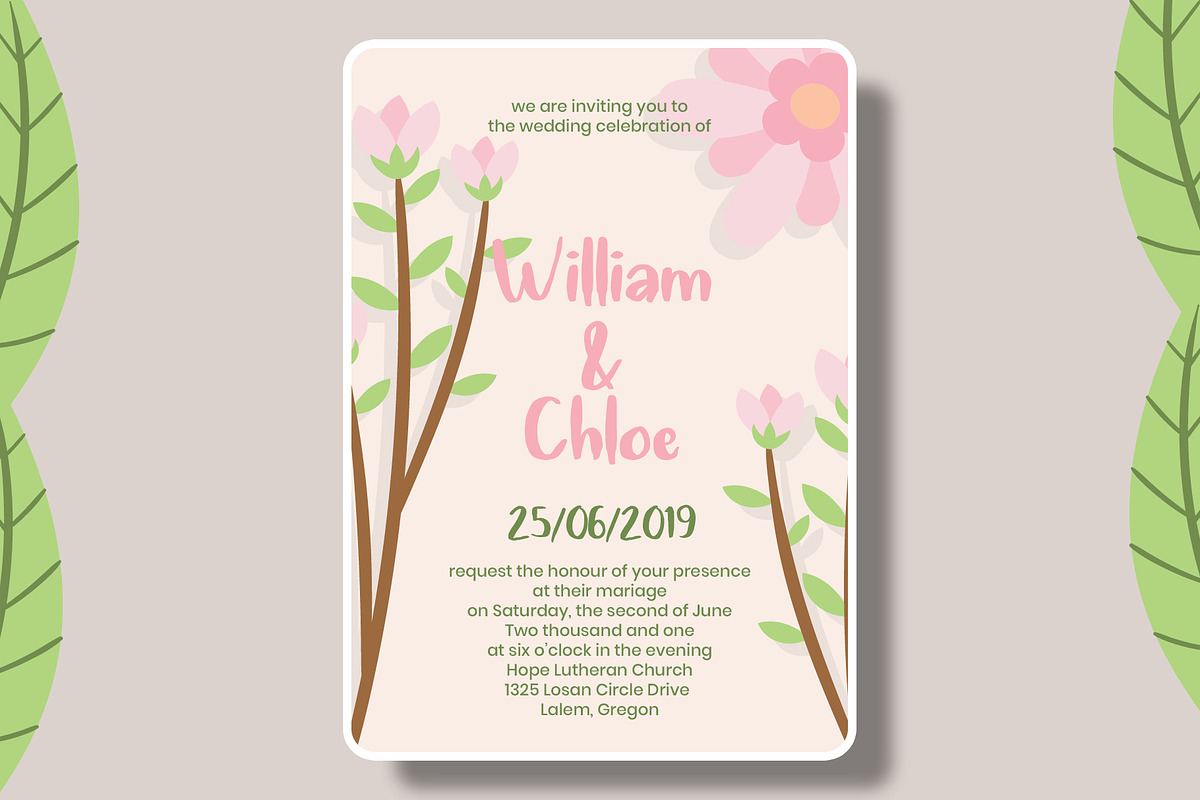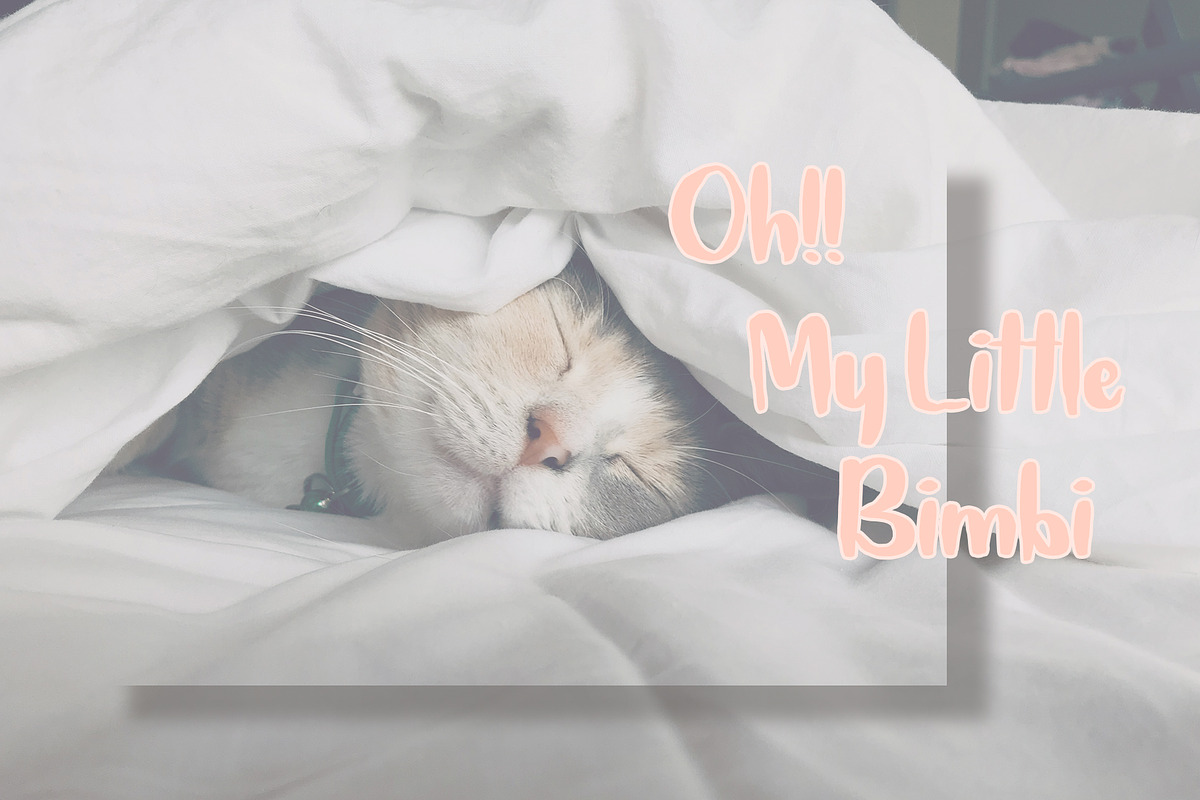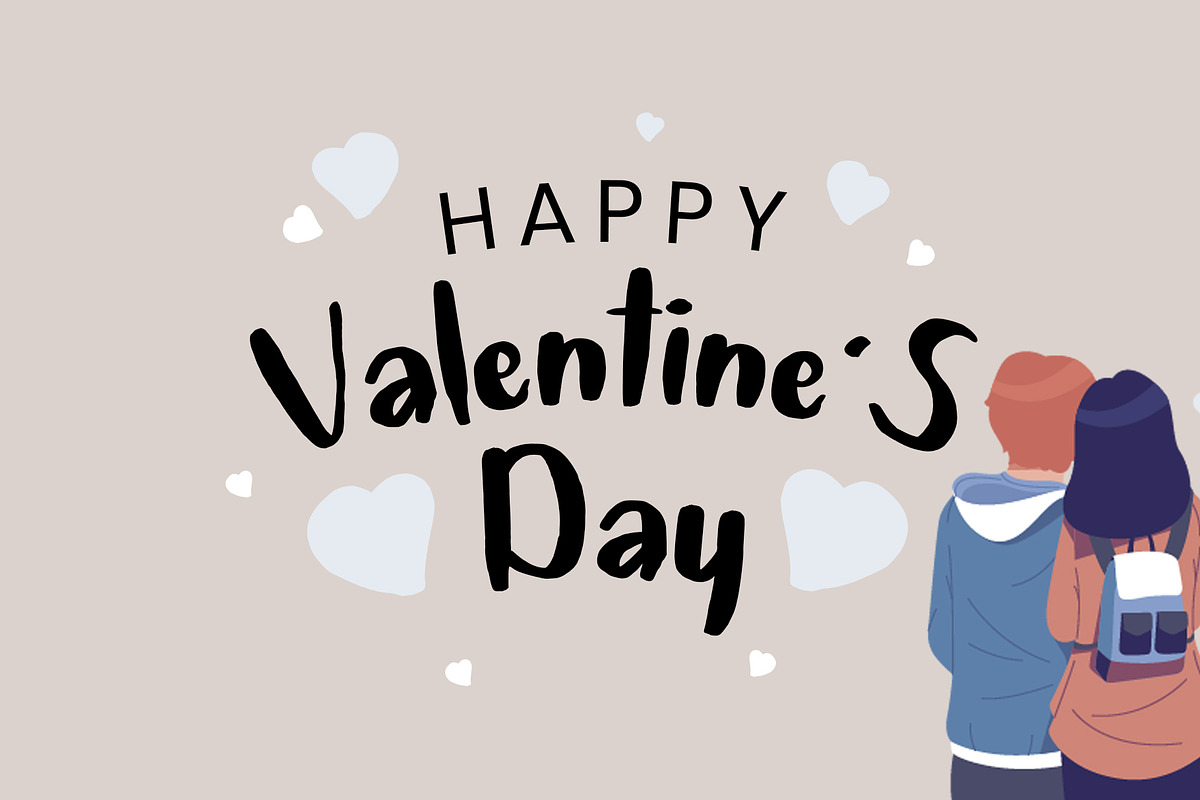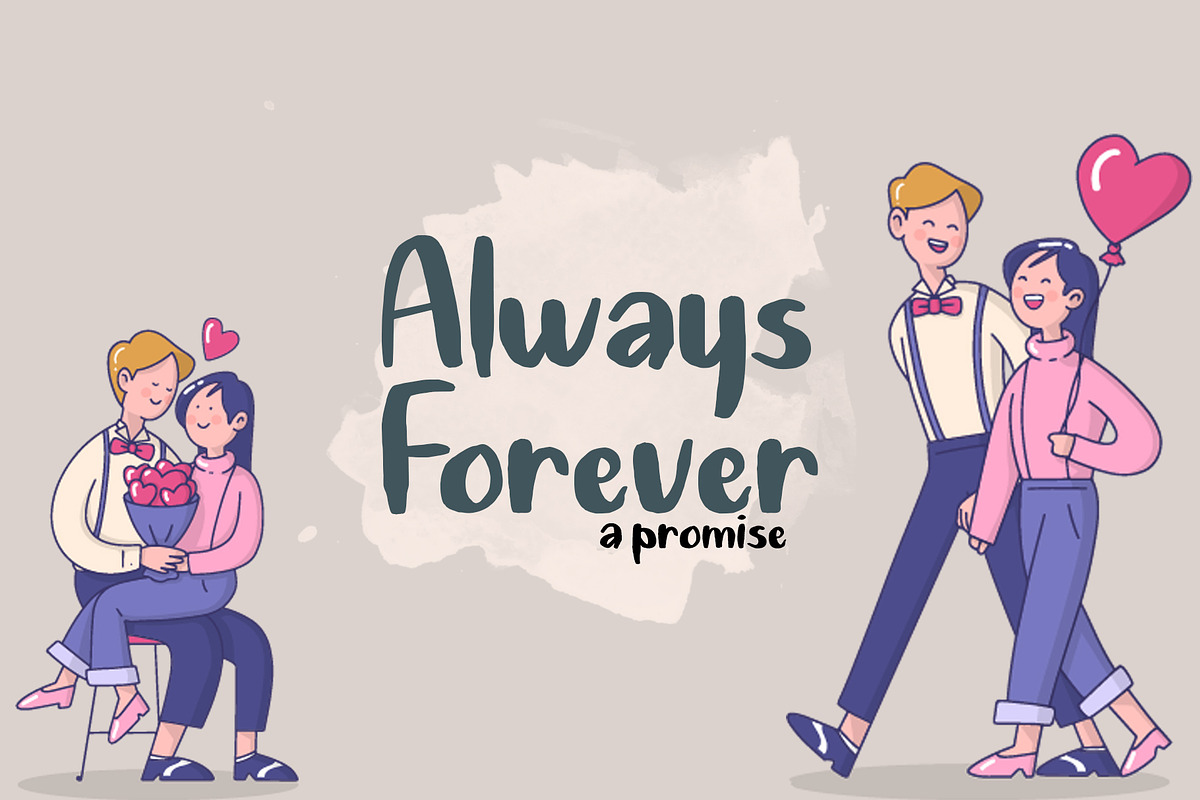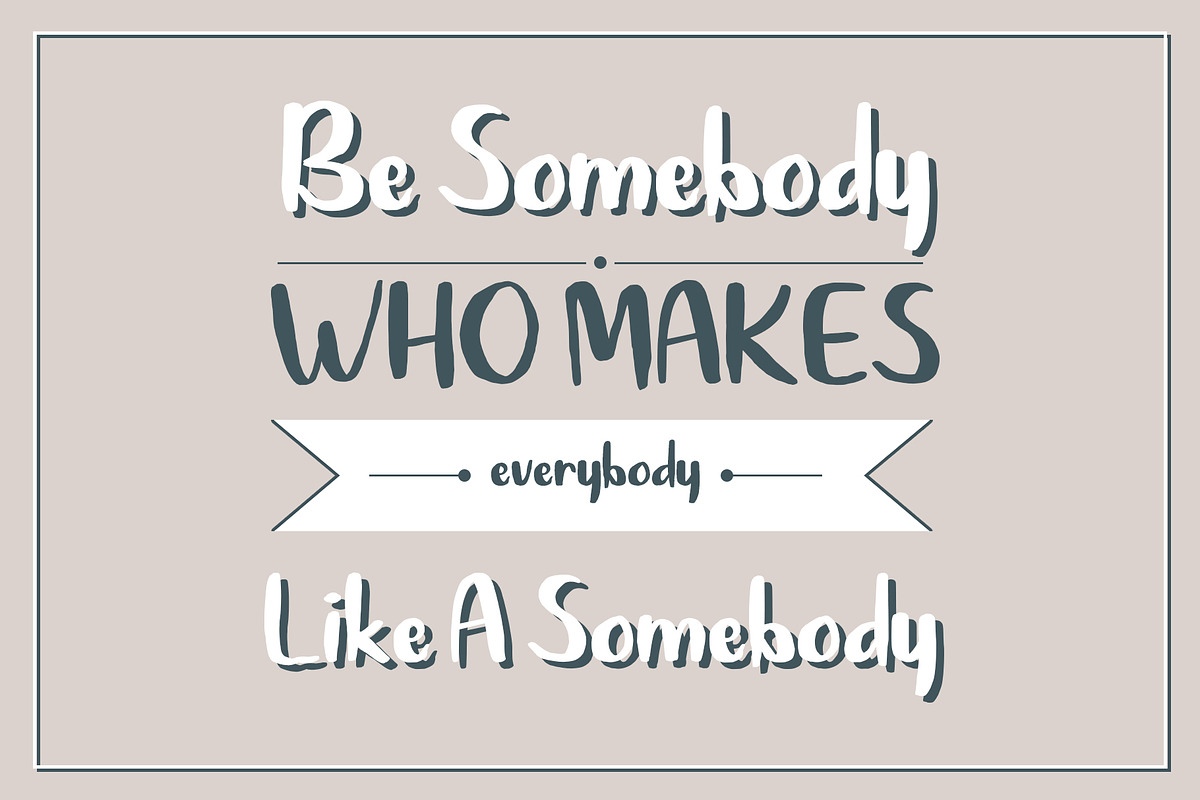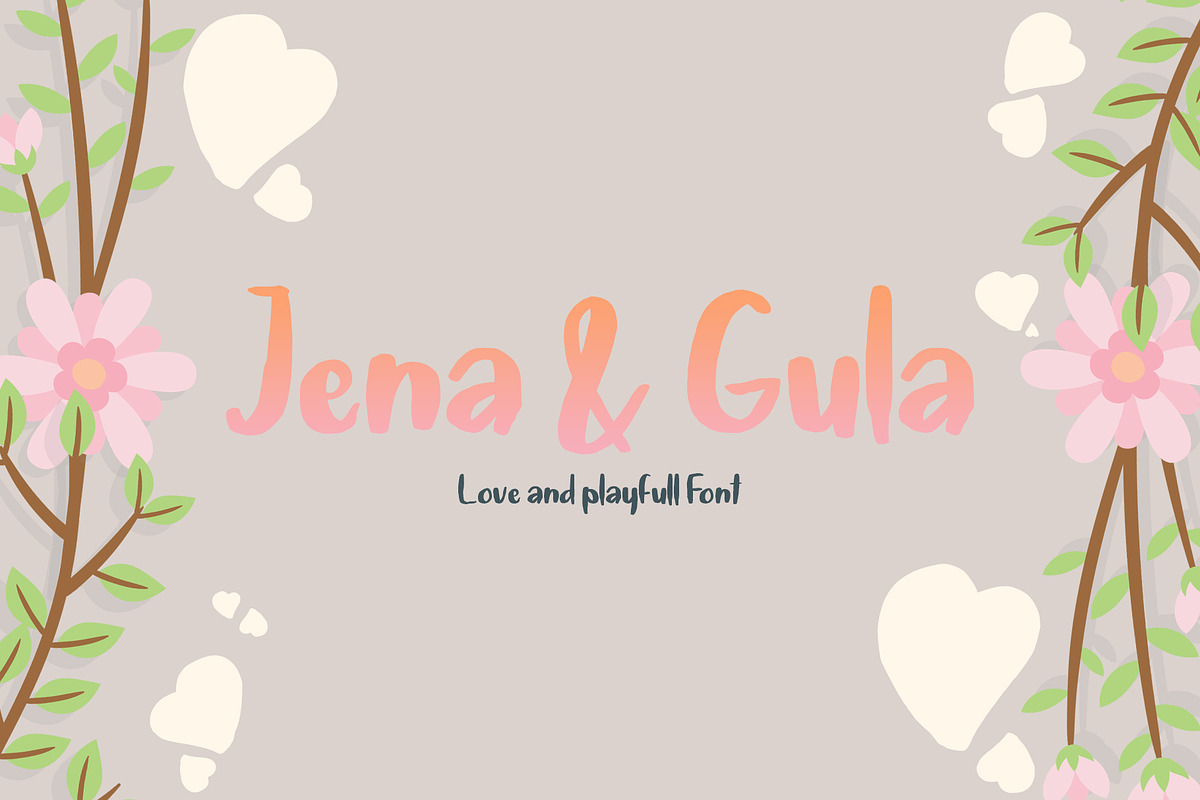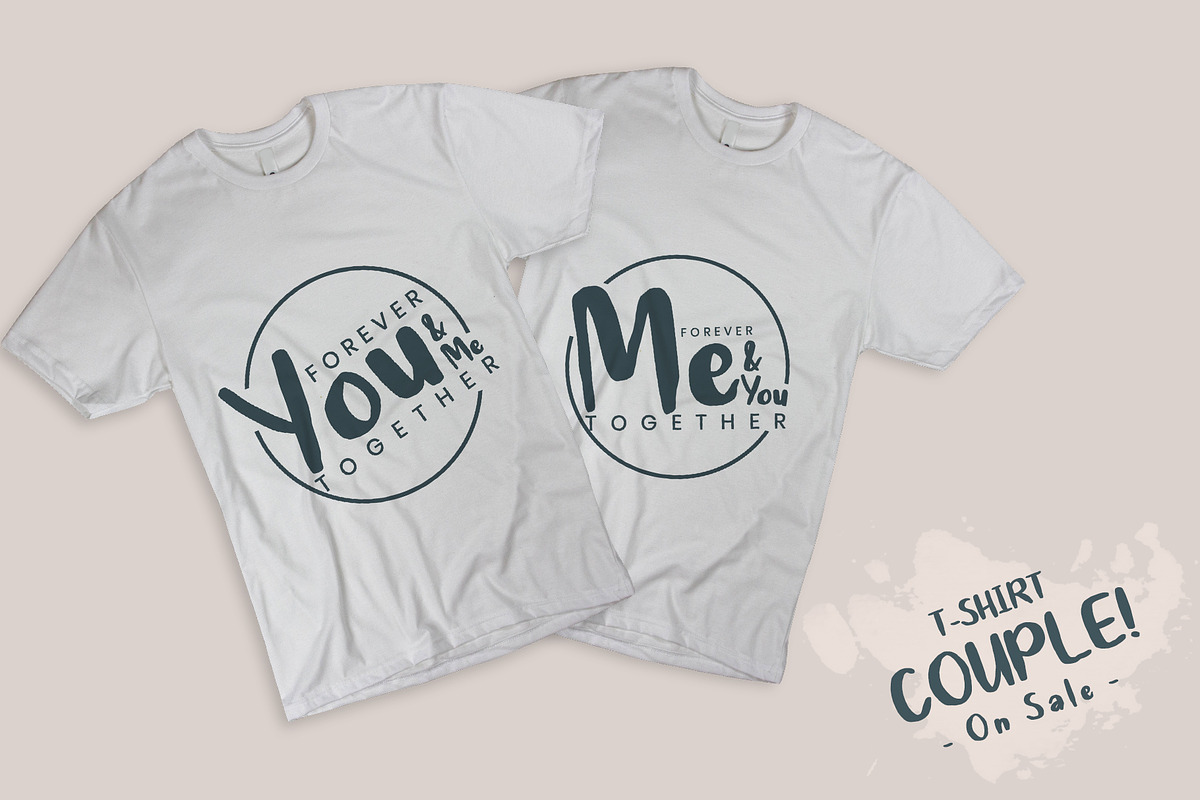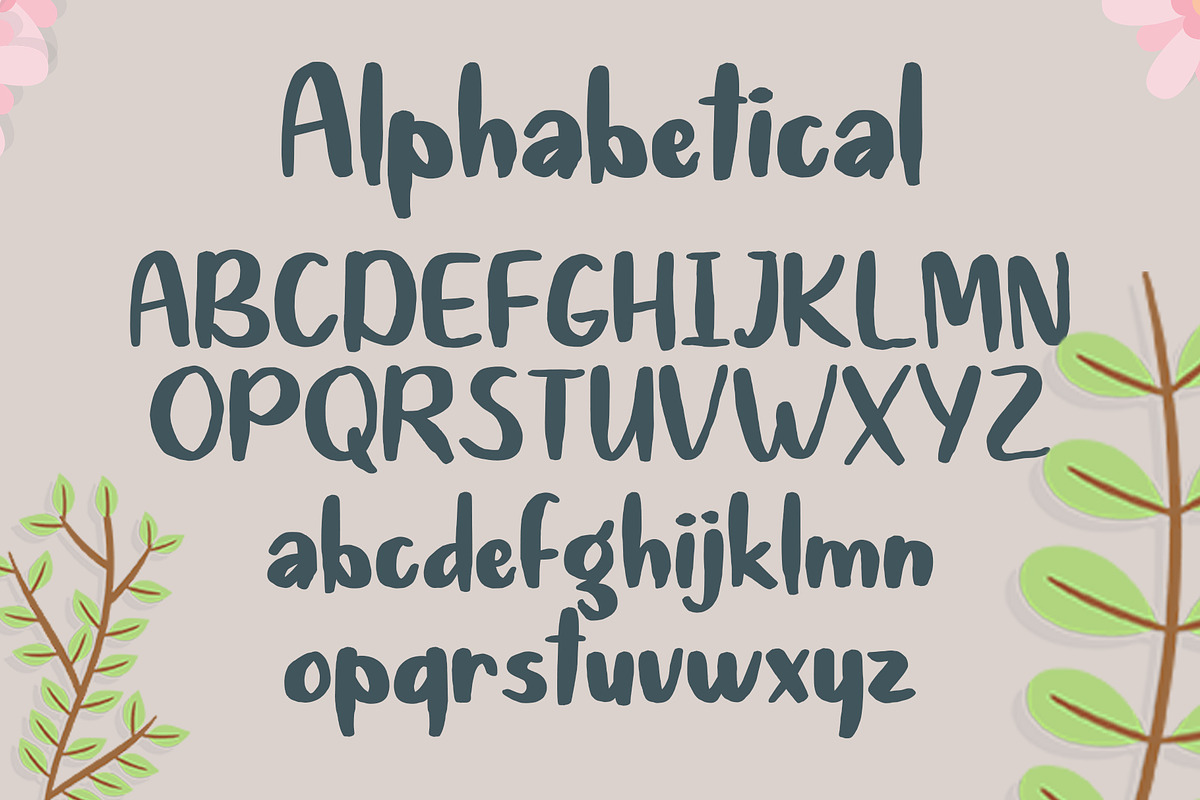
Jena & Gula | Love and Playfull Font
Introducing of our new product the name is Jena & Gula a Love and Playful Font. Jena & Gula very good for crafting, kids poster, wedding, promotion poster, cartoon, comic etc.
Why Jena & Gula | Love and Playfull Font is worth a look
Jena & Gula | Love and Playfull Font by Analogous fits naturally into Branding, posters, packaging, typography.